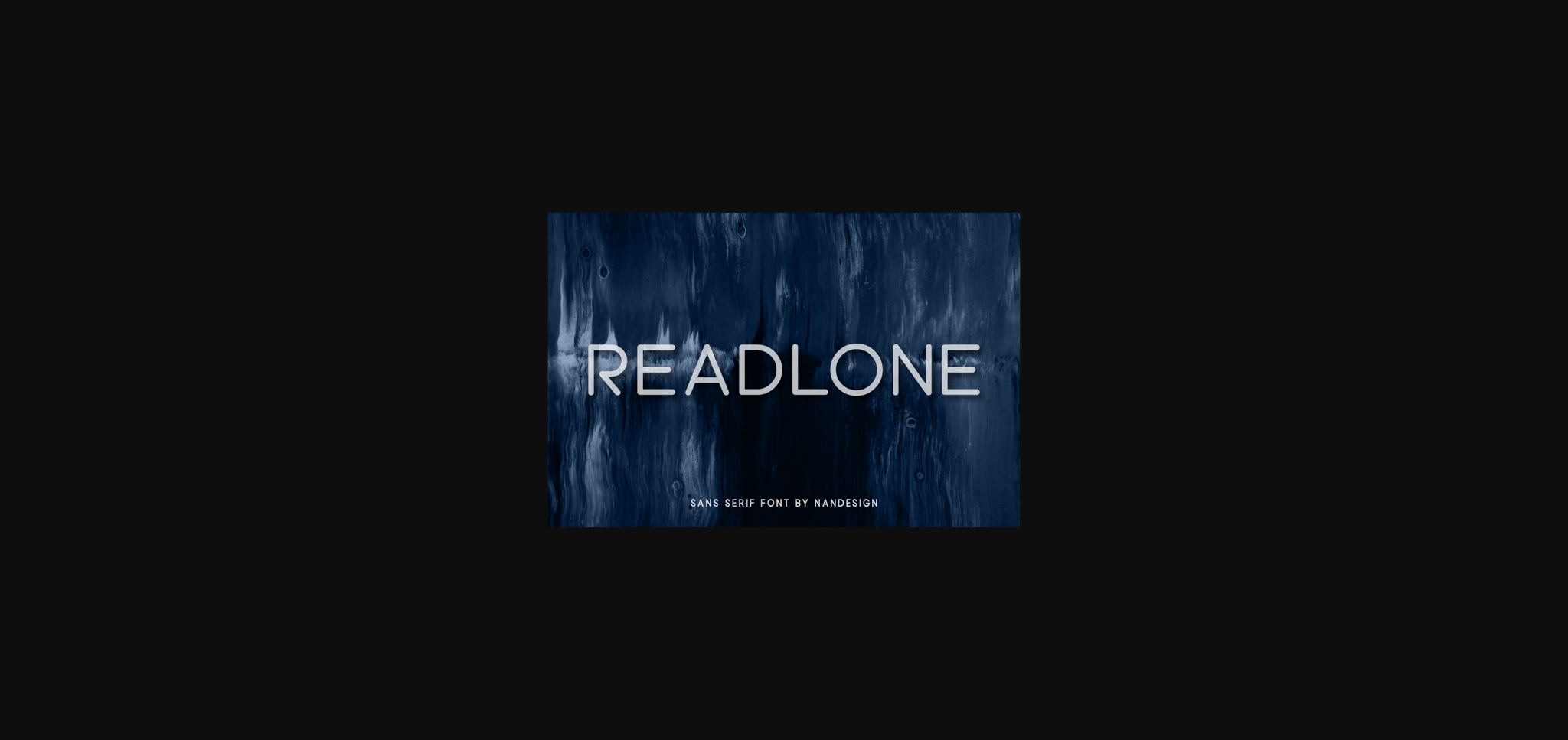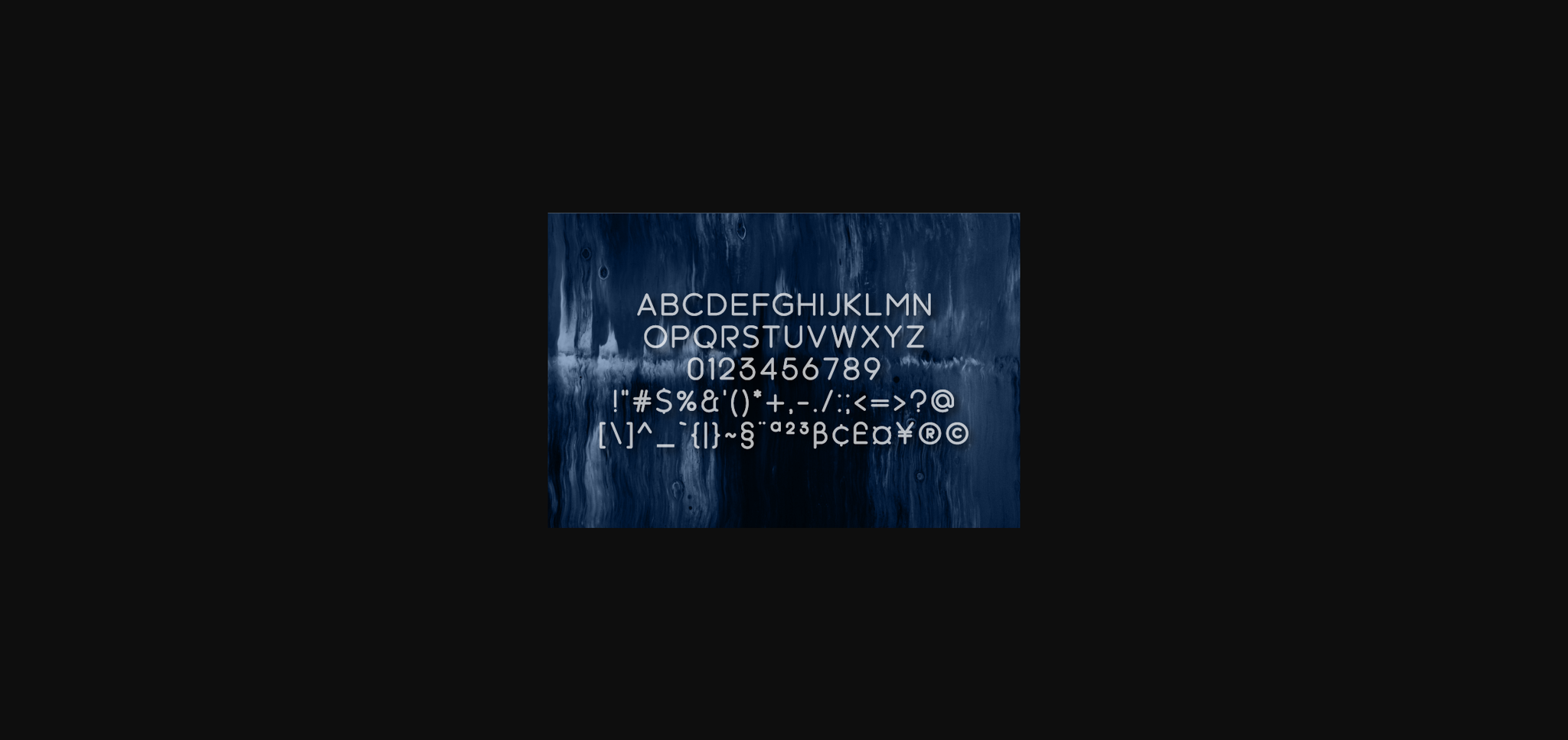
About Readlone Font
Readlone is a beautiful, modern and simple sans serif font. Masterfully designed to become a true favorite, this font has the potential to bring each of your creative ideas to the highest level!